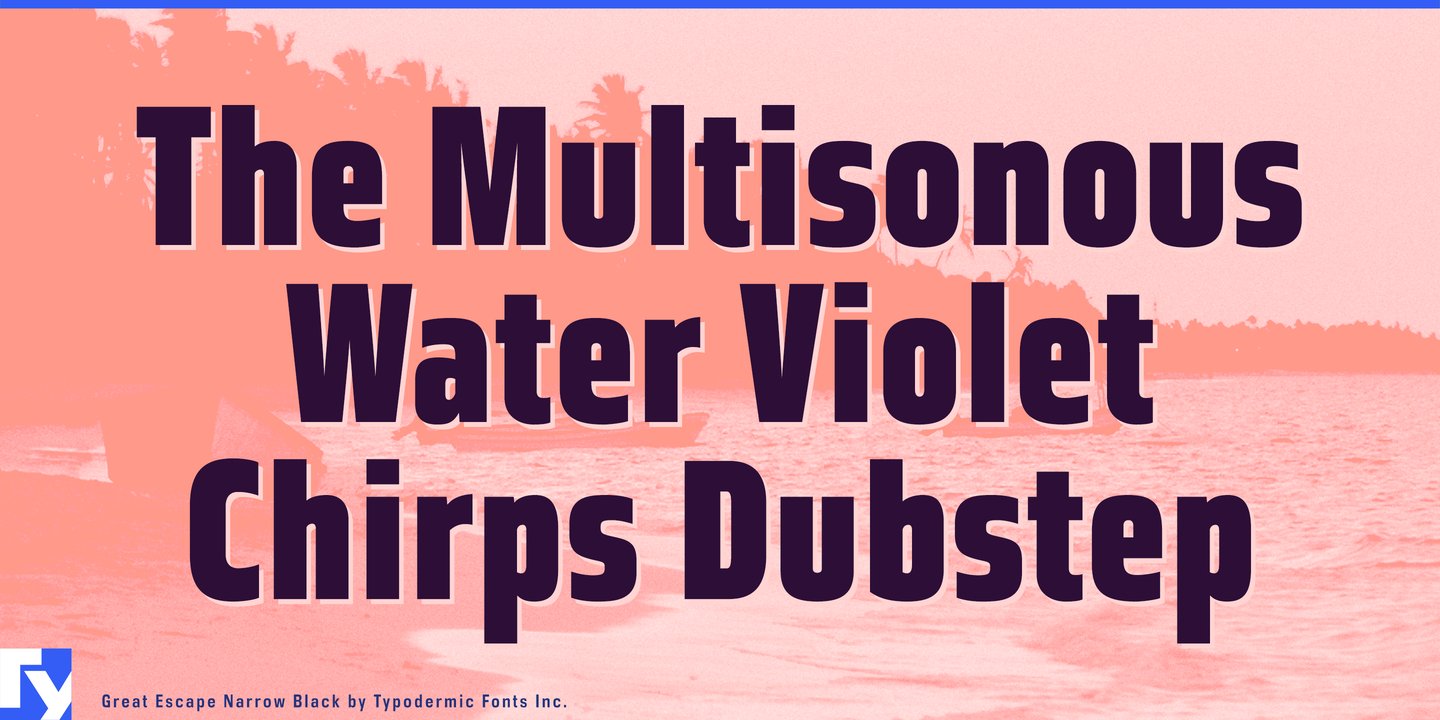
Welcome to the sleek and stylish world of Great Escape. This ultra-modern typeface is the perfect choice for anyone who wants to make a bold statement with their typography. With its geometric shapes and elegant softening, Great Escape offers a fresh take on traditional grotesque typefaces.
What makes Great Escape truly unique is its compact design. This font is packed with all the authority and rationality you need to deliver a powerful message, but its compactness gives it a contemporary and minimalist feel. Perfect for tech-related projects or any modern design, Great Escape is a versatile and sophisticated typeface that can elevate any project.
Available in 28 styles, Great Escape gives you plenty of options to choose from. You can select from seven different weights, two widths, and even italics, so you can customize your typography to suit your specific needs. Whether you’re designing a logo, creating a website, or crafting a marketing campaign, Great Escape is the perfect typeface to add a touch of elegance and sophistication to your work.